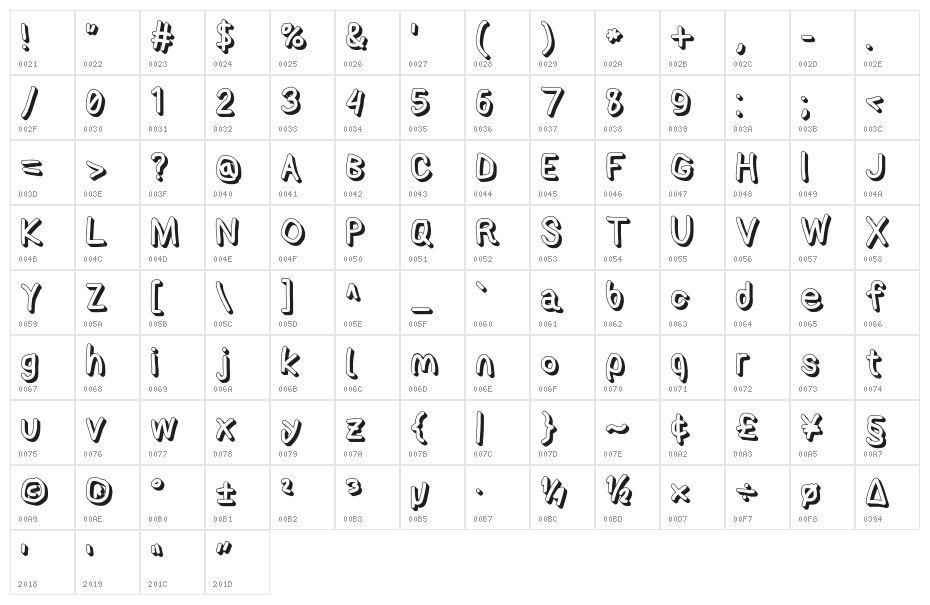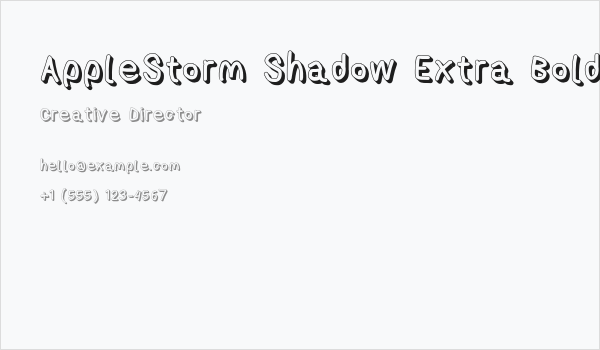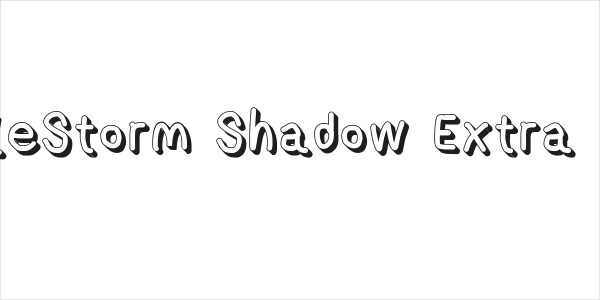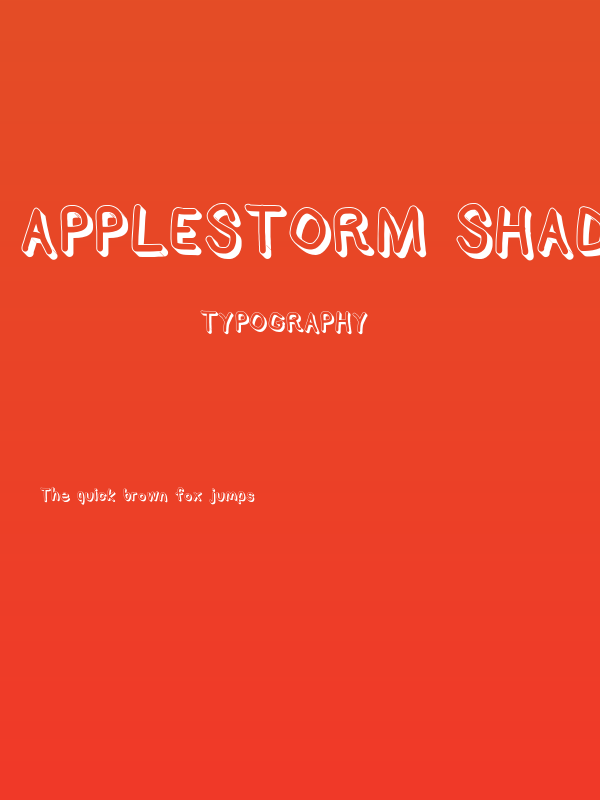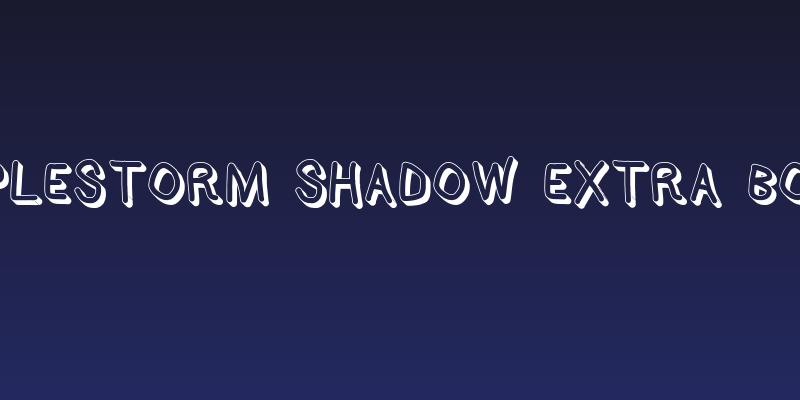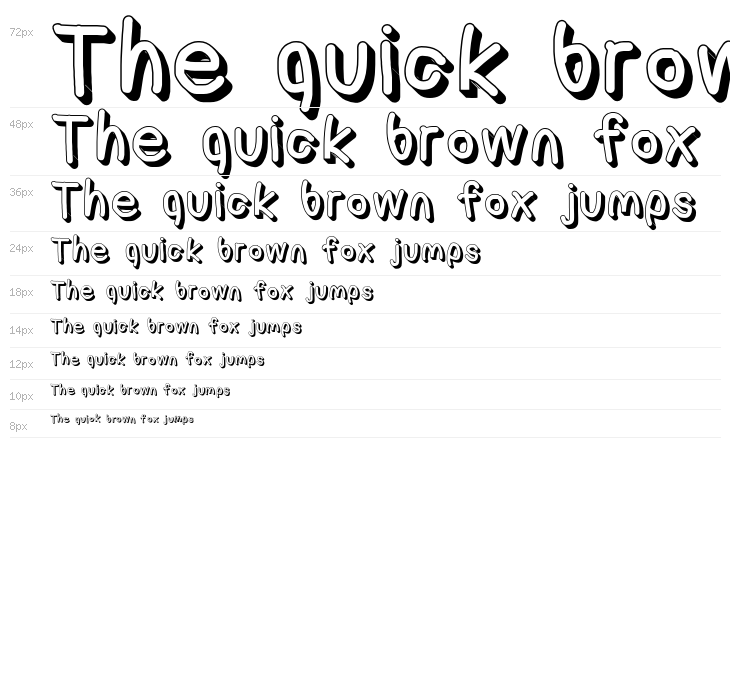
AppleStorm Shadow Extra Bold Font
AppleStorm Shadow Extra Bold Description
This font features a bold, playful style with a three-dimensional shadow effect that gives it a dynamic and eye-catching appearance. The characters are rounded and slightly irregular, adding a whimsical and informal touch. The shadow creates a sense of depth, making the letters pop off the page. This style is reminiscent of comic book lettering, with a fun and energetic vibe. The font is highly legible, with clear distinctions between each character, making it suitable for various creative applications.
| Overall Style | Playful, Comic |
| Proposed Projects | Ideal for comic books, children's books, playful branding, posters, and any project requiring a fun, energetic typeface. |